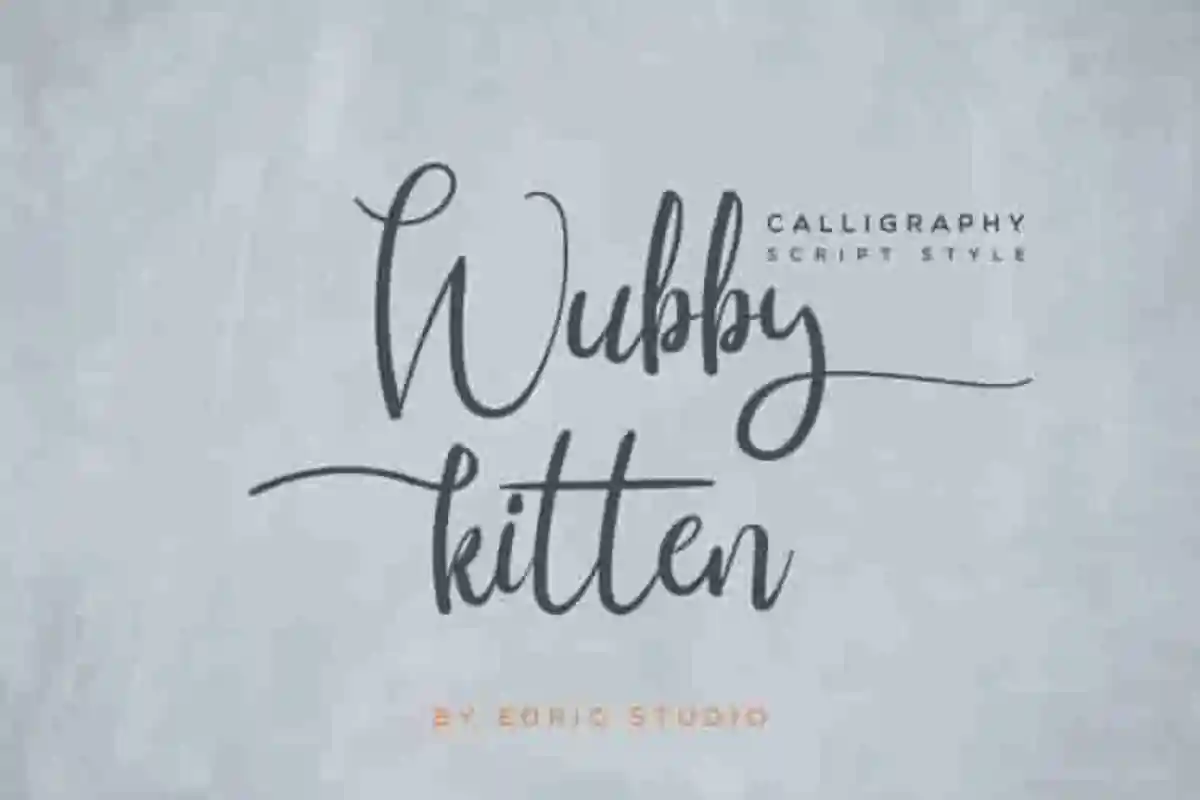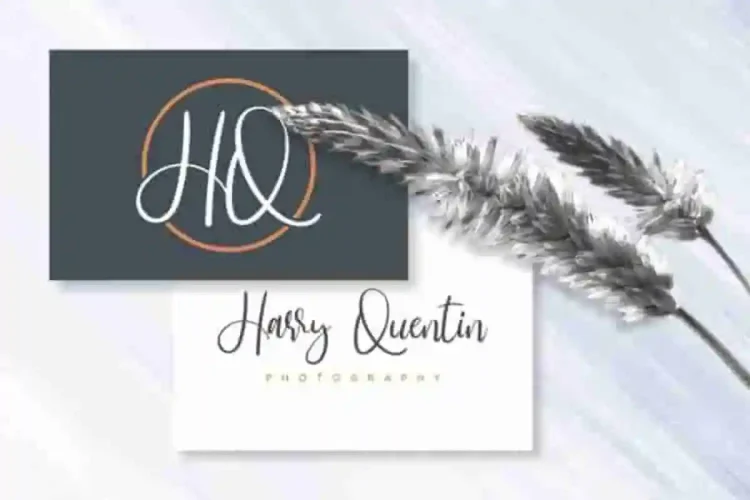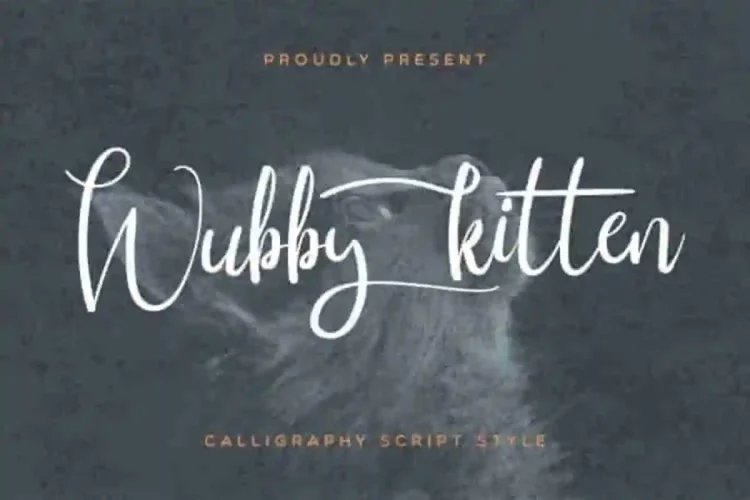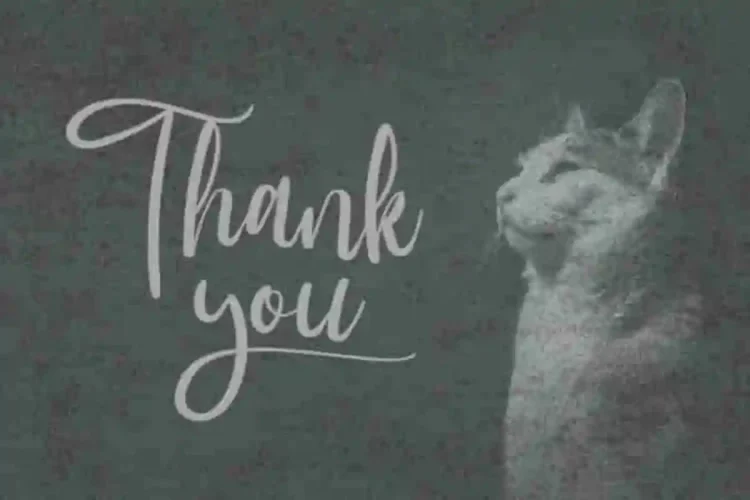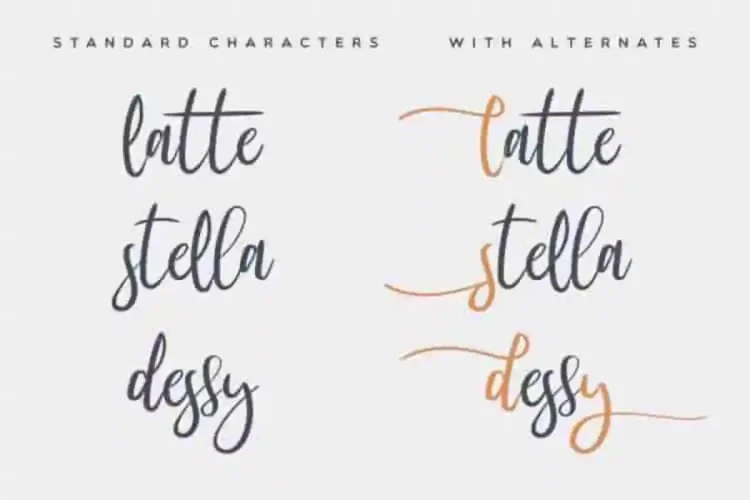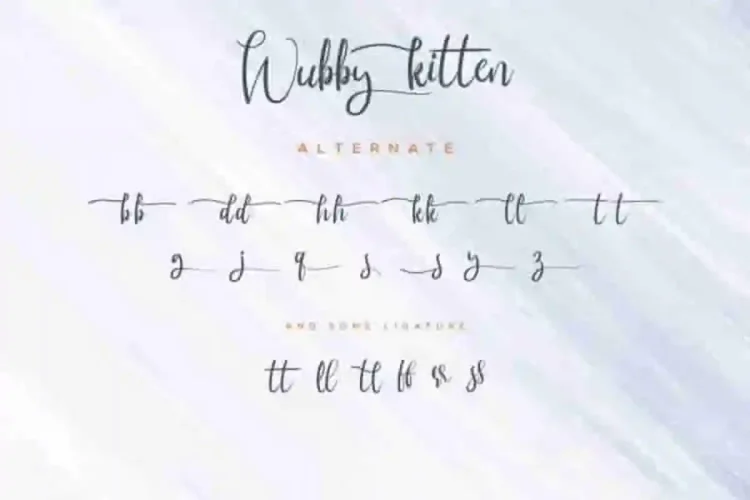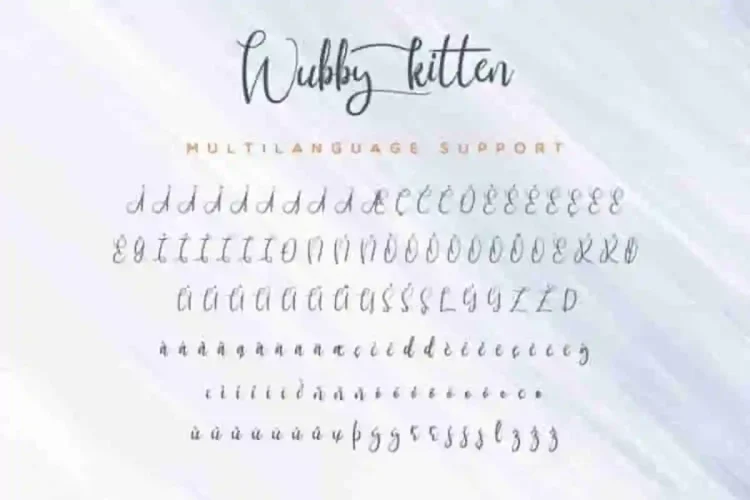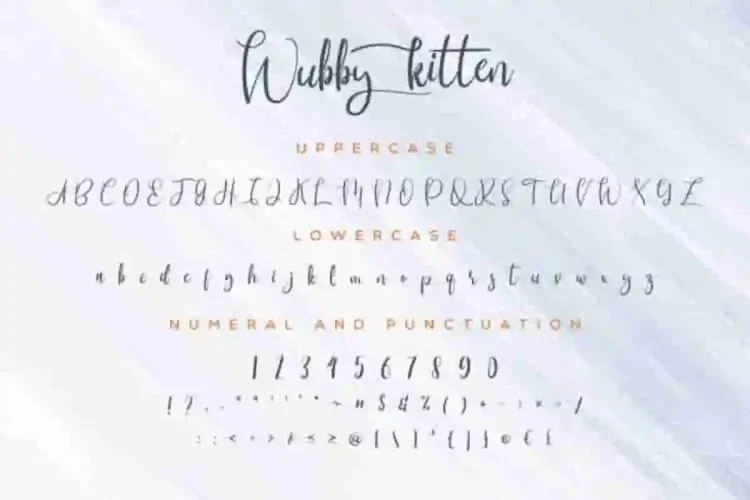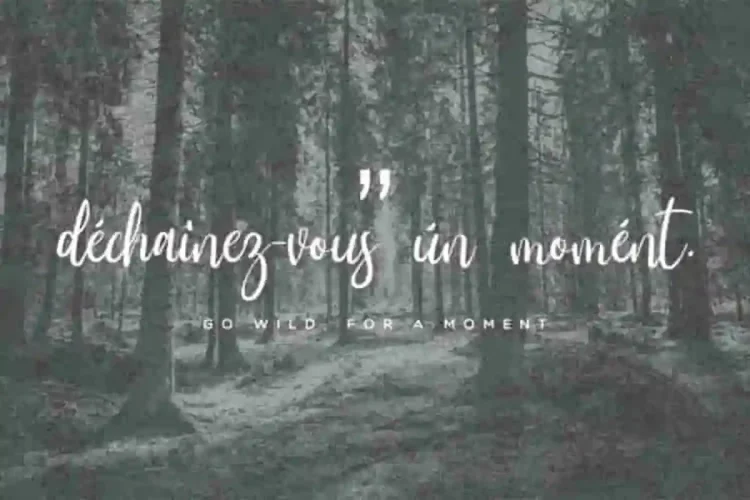
Wubby Kitten Calligraphy Font
The newest font from our lovely artist : Wubby Kitten Calligraphy Font
This is a Calligraphy font, handcrafted from our Studio here in, Indonesia. The artists/designers of this beautiful tyeface is Saepul and Suci.
Wubby Kitten Calligraphy Font is an exclusive calligraphy script typeface with brush style. This font has a stunning characters set, perfectly managed with well spaced and kerning. The theme style of this font will elegant,  vintage, stylish, sophisticated and classic brush calligraphic natural lettering style.
Perfectly crafted with stunning character sets, precise spacing, and flawless kerning, Wubby Kitten is ideal for branding, logos, wedding invitations, stationery, business cards, signage, flyers, brochures, and more.